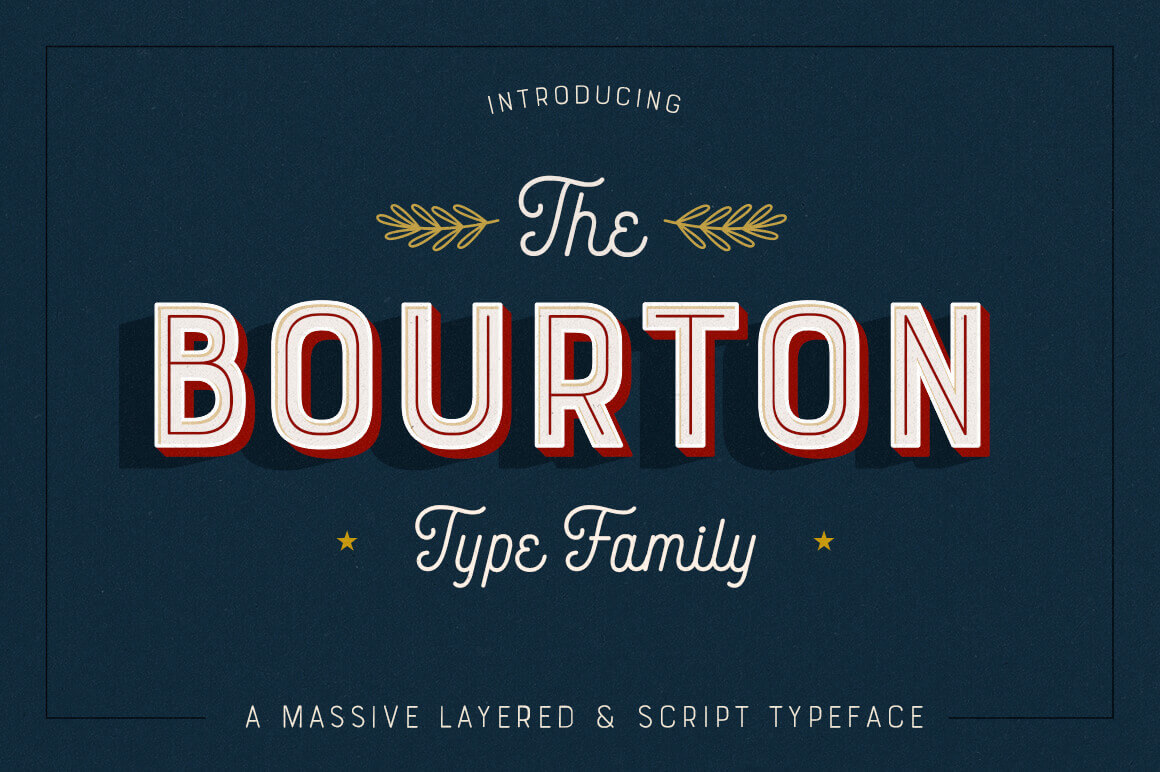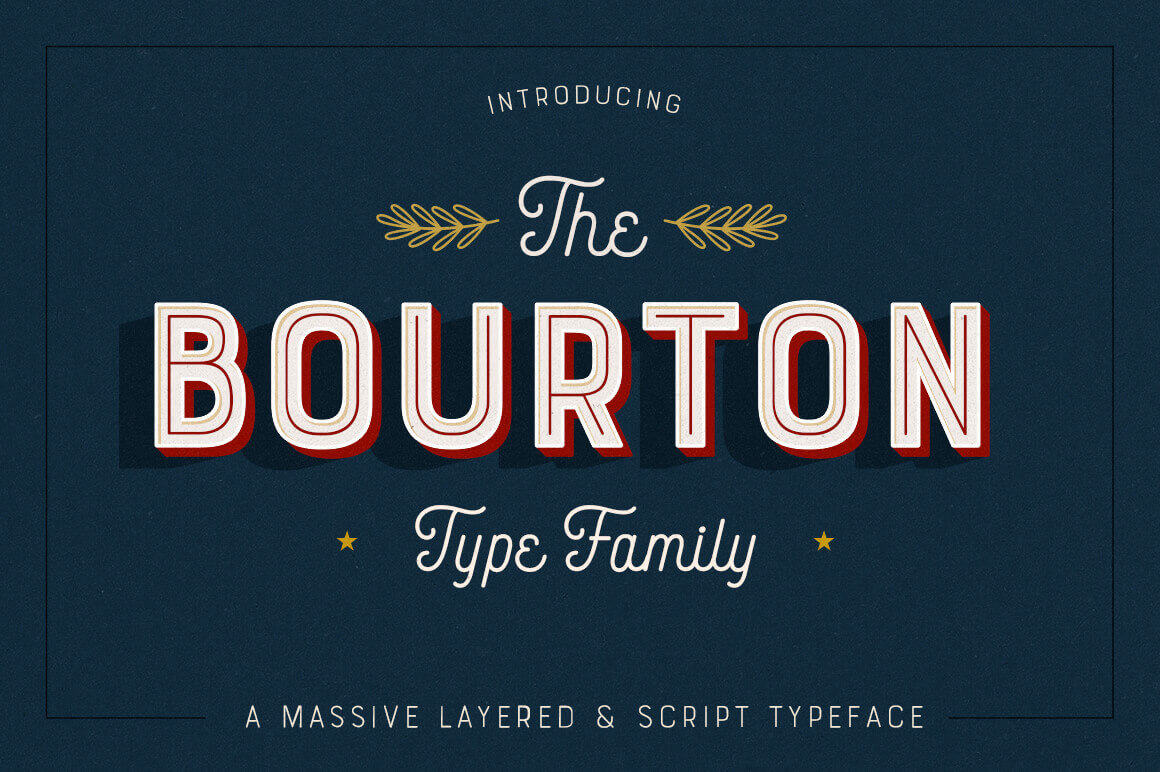
Bourton Base Font
Bourton Base Font - In addition to a new look, it boasts more. Web bourton base is a font family of 386 characters that can be used for various purposes, such as headlines, logos, or. Web bourton font duo. Bourton is a new typeface by kimmy design.
In addition to a new look, it boasts more. Web bourton base is a font family of 386 characters that can be used for various purposes, such as headlines, logos, or. Web bourton font duo. Bourton is a new typeface by kimmy design.
In addition to a new look, it boasts more. Bourton is a new typeface by kimmy design. Web bourton font duo. Web bourton base is a font family of 386 characters that can be used for various purposes, such as headlines, logos, or.
Bourton is a new typeface by kimmy design. In addition to a new look, it boasts more. Web bourton font duo. Web bourton base is a font family of 386 characters that can be used for various purposes, such as headlines, logos, or.
Web bourton base is a font family of 386 characters that can be used for various purposes, such as headlines, logos, or. Web bourton font duo. Bourton is a new typeface by kimmy design. In addition to a new look, it boasts more.
Web bourton base is a font family of 386 characters that can be used for various purposes, such as headlines, logos, or. Bourton is a new typeface by kimmy design. In addition to a new look, it boasts more. Web bourton font duo.
Web bourton font duo. Web bourton base is a font family of 386 characters that can be used for various purposes, such as headlines, logos, or. Bourton is a new typeface by kimmy design. In addition to a new look, it boasts more.
Web bourton font duo. Web bourton base is a font family of 386 characters that can be used for various purposes, such as headlines, logos, or. In addition to a new look, it boasts more. Bourton is a new typeface by kimmy design.
In addition to a new look, it boasts more. Web bourton base is a font family of 386 characters that can be used for various purposes, such as headlines, logos, or. Web bourton font duo. Bourton is a new typeface by kimmy design.
Bourton is a new typeface by kimmy design. Web bourton base is a font family of 386 characters that can be used for various purposes, such as headlines, logos, or. Web bourton font duo. In addition to a new look, it boasts more.
This basic family is a simplified version of the extended type family
Web bourton base is a font family of 386 characters that can be used for various purposes, such as headlines, logos, or. Web bourton font duo. Bourton is a new typeface by kimmy design. In addition to a new look, it boasts more.
Web bourton font duo. Bourton is a new typeface by kimmy design. Web bourton base is a font family of 386 characters that can be used for various purposes, such as headlines, logos, or. In addition to a new look, it boasts more.
Web Bourton Base Is A Font Family Of 386 Characters That Can Be Used For Various Purposes, Such As Headlines, Logos, Or.
Bourton is a new typeface by kimmy design. In addition to a new look, it boasts more. Web bourton font duo.